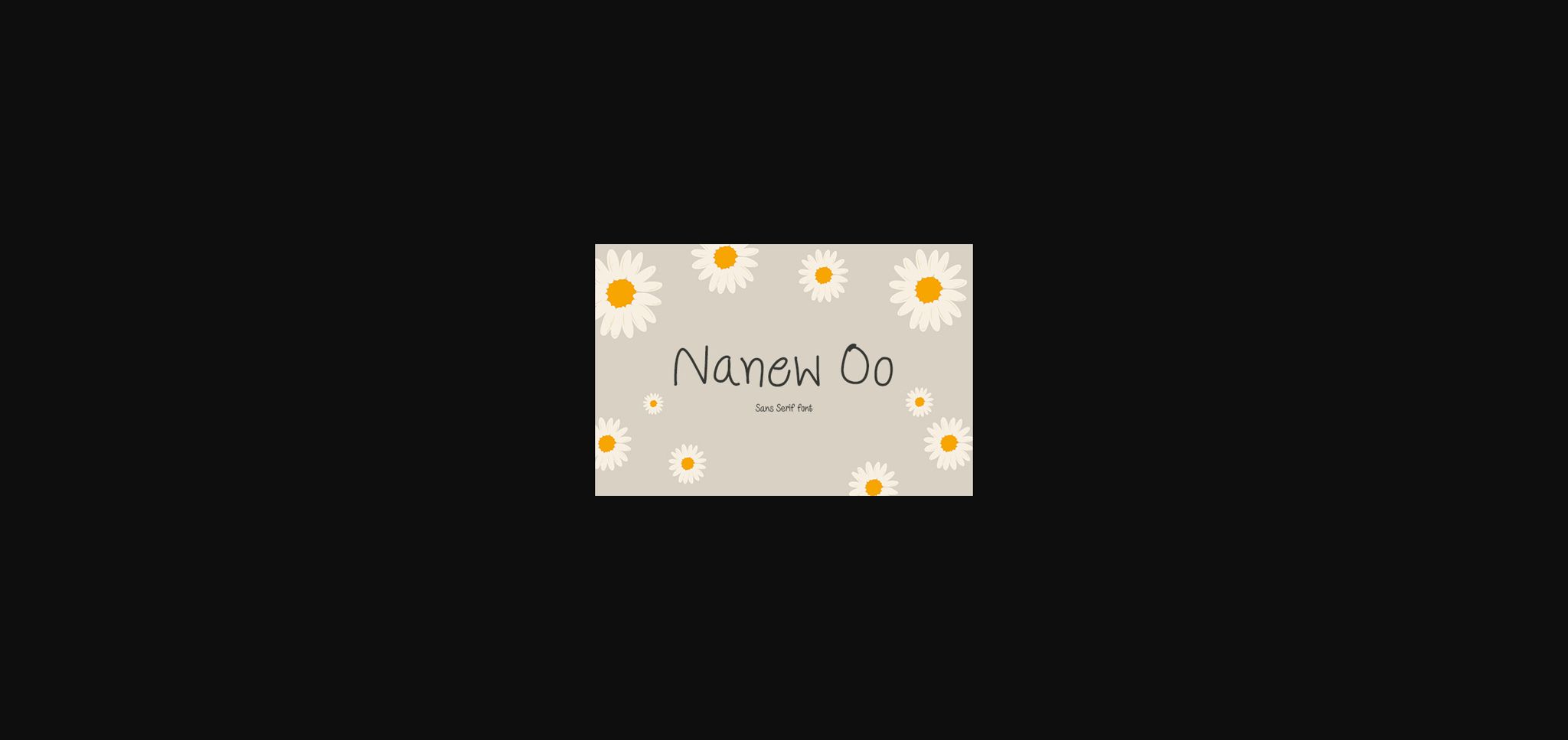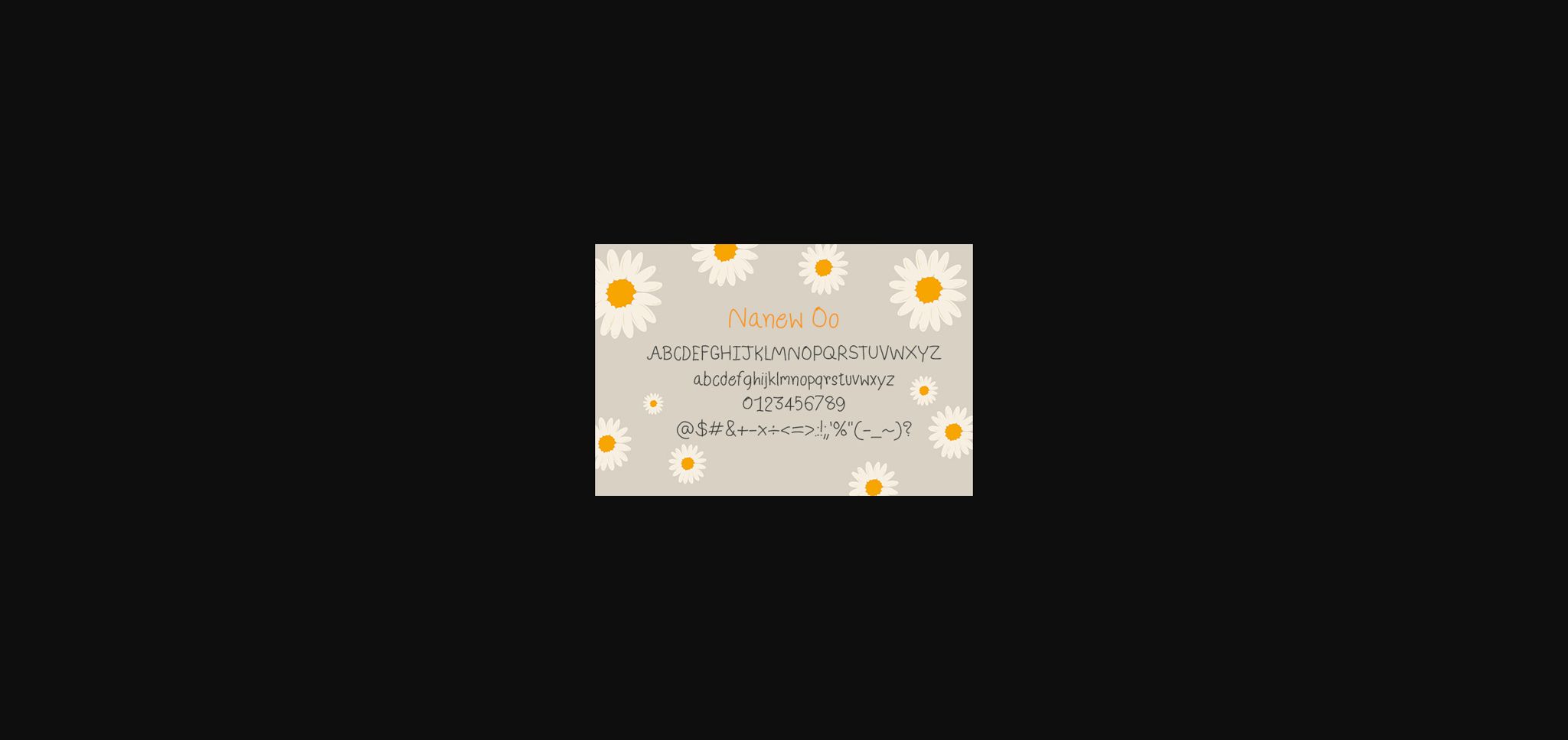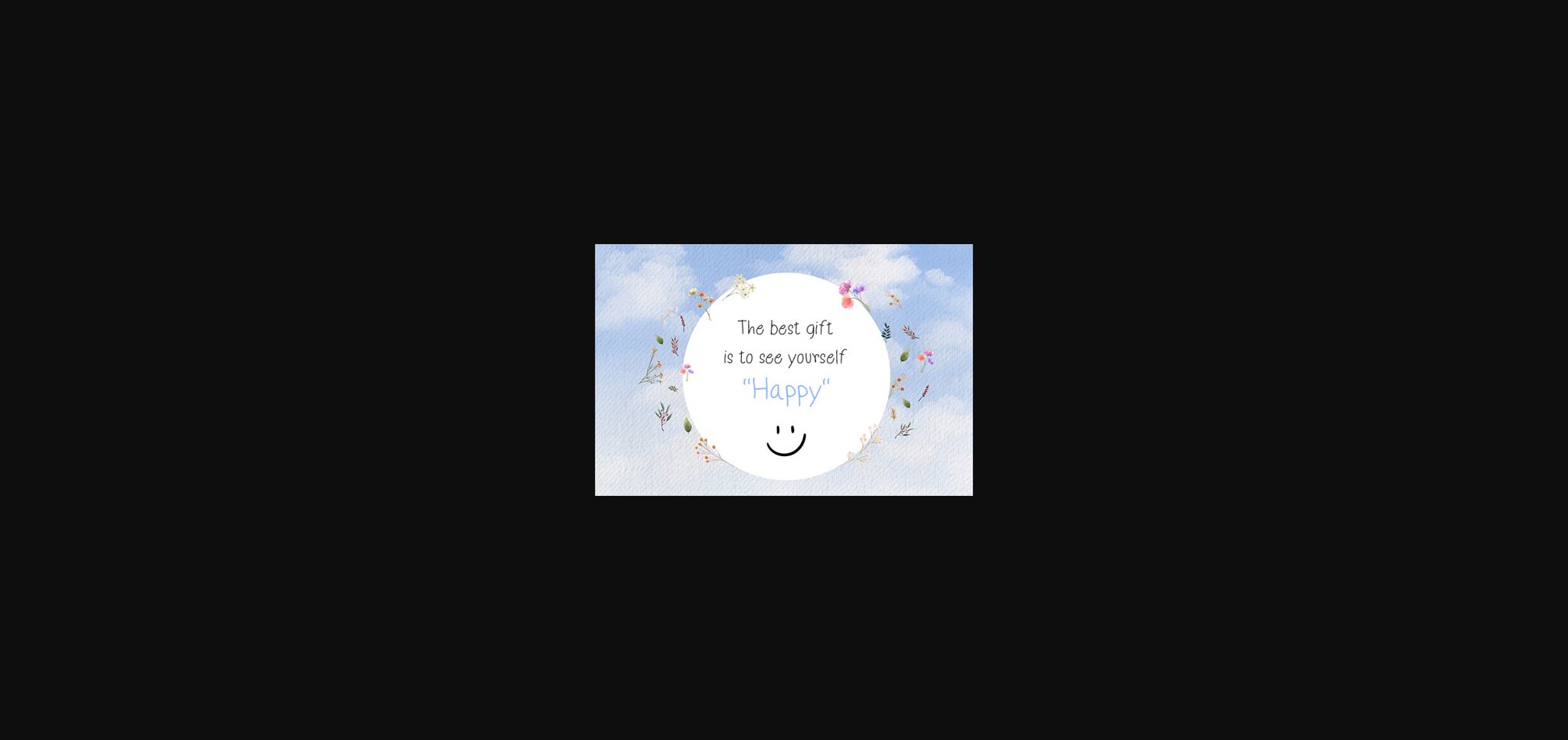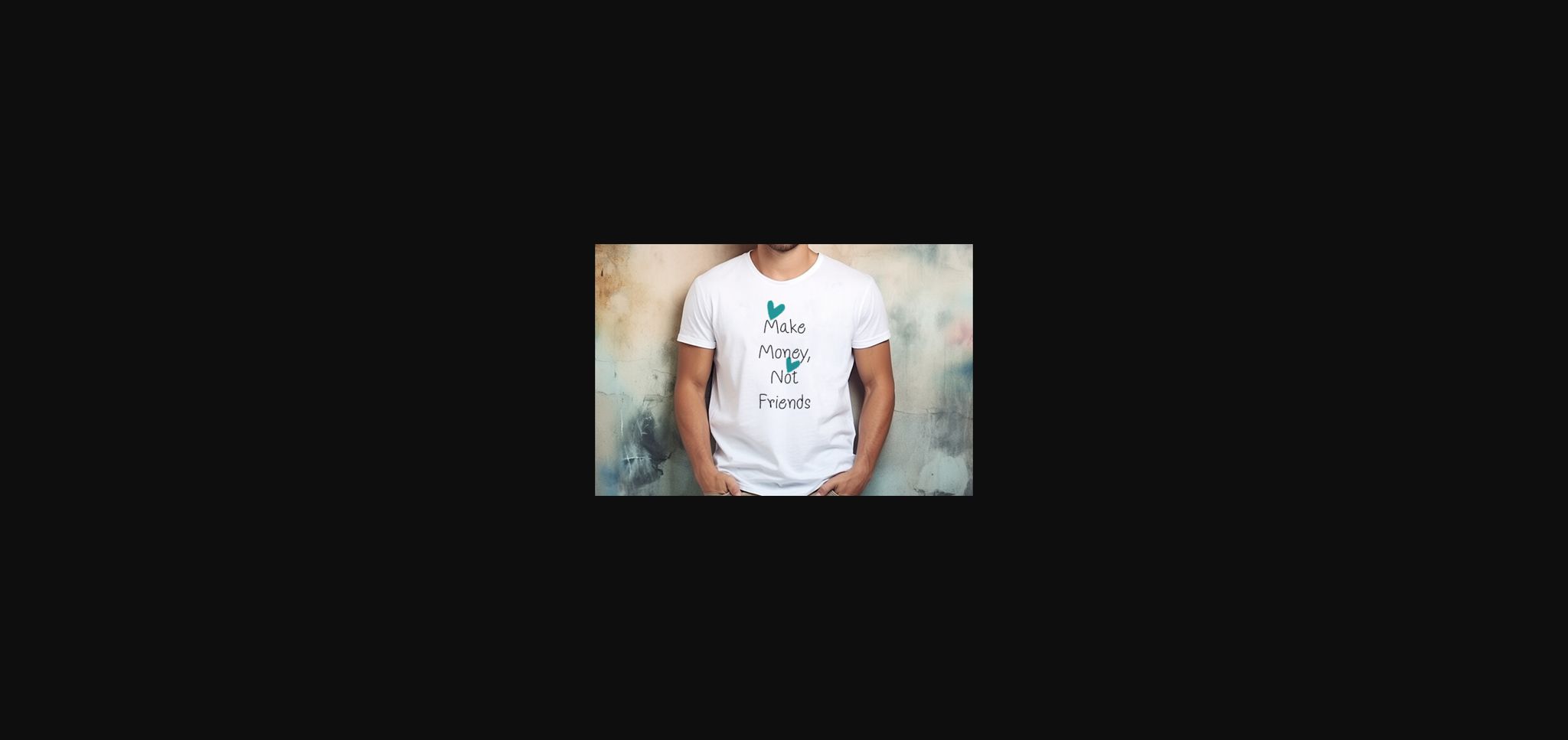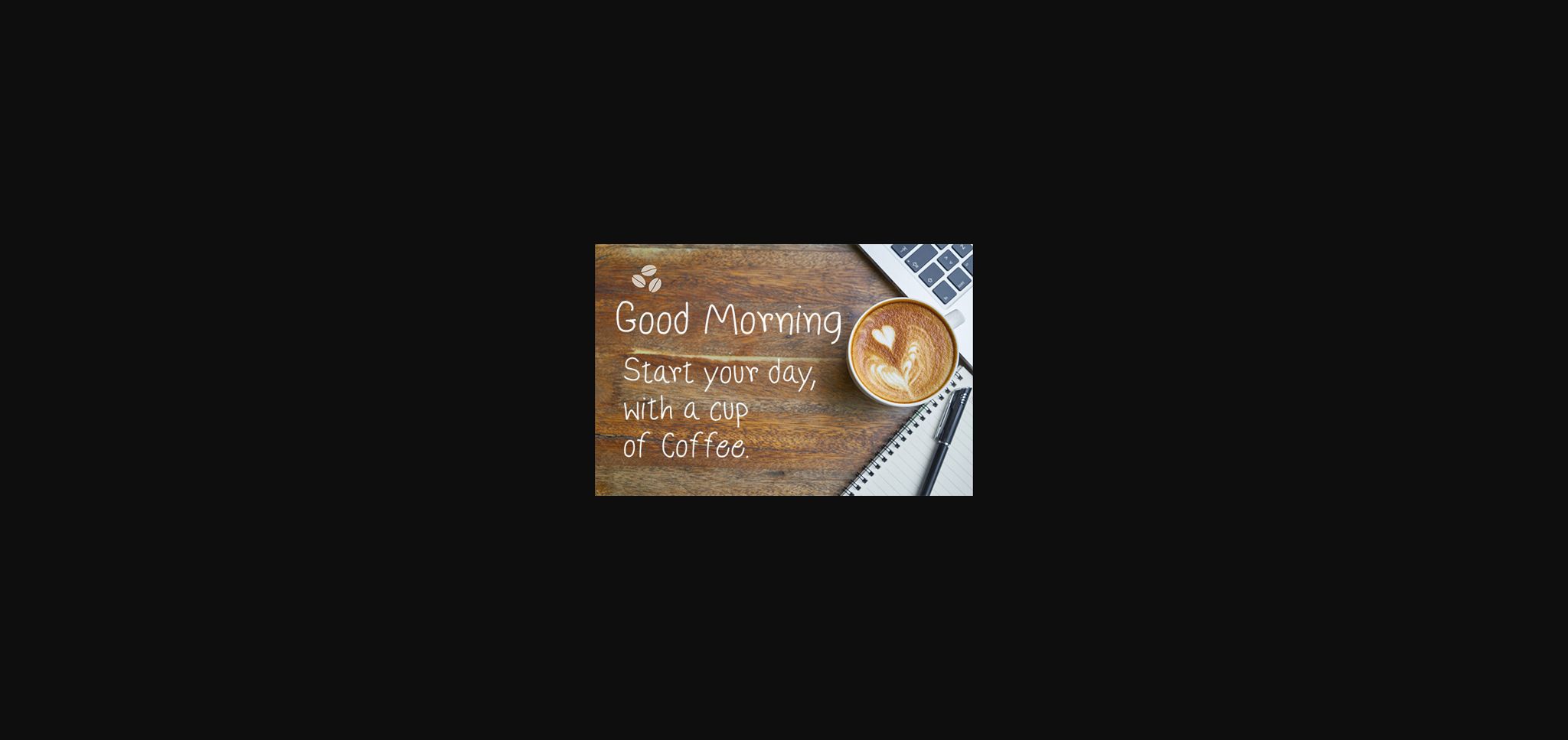
Nanew Oo Font
About Nanew Oo Font
Nanew Oo is a playful, fun and a bit quirky handwritten font. It would be awesome to your fun projects or diary planner, on wedding invitations, thank you cards, quotes, greeting cards, logos, posters, blogs, bag, T Shirt, clothing and other designs.